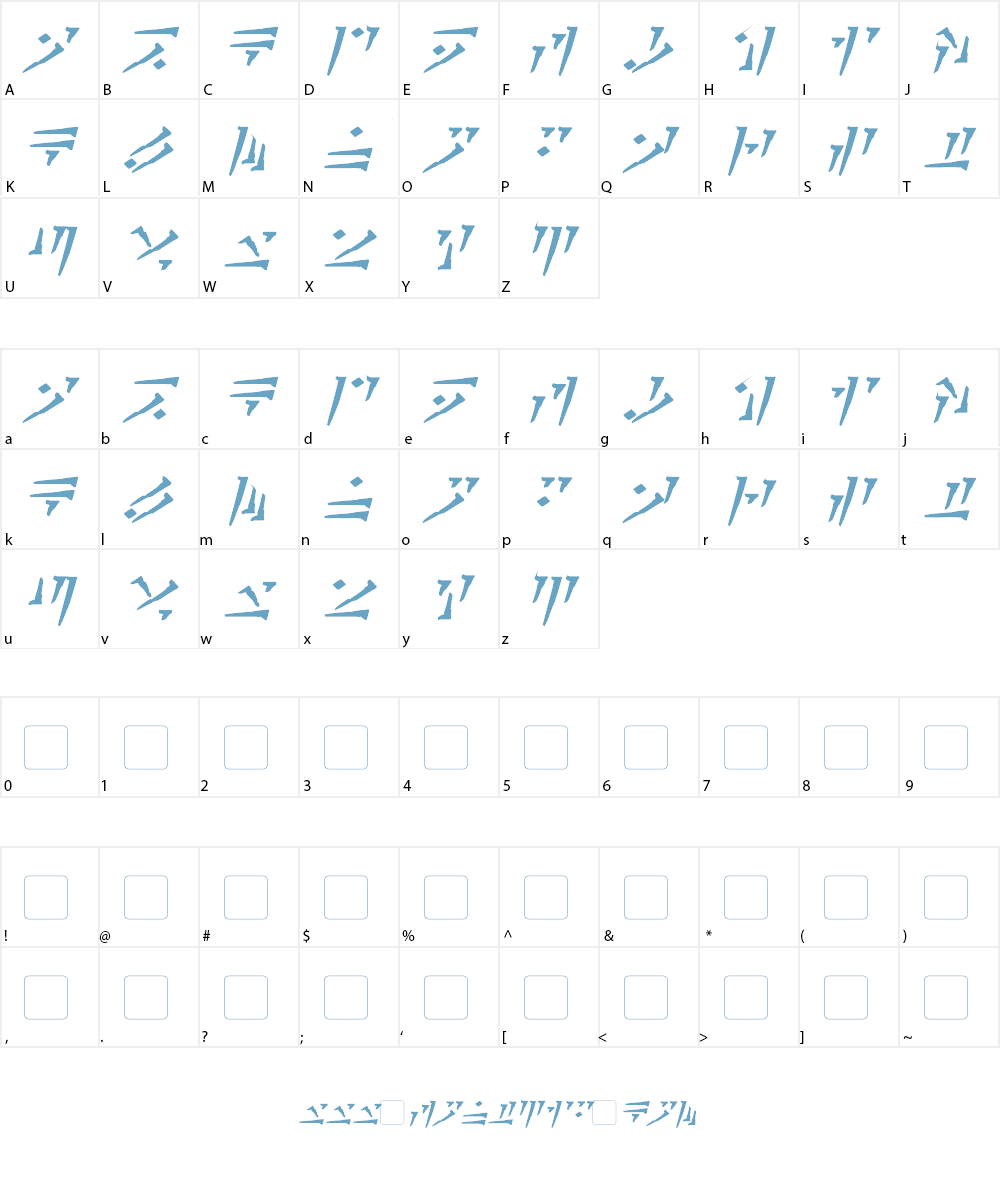
Dovahkiin is based on the runic dragon-script found within Bethesda Softwork’s The Elder Scrolls: Skyrim game. This is a sharp, ‘crude’ face design to resemble claws tearing into stone. Includes all ‘canon’ characters. Includes regular, bold, italic, and bold-italic faces.